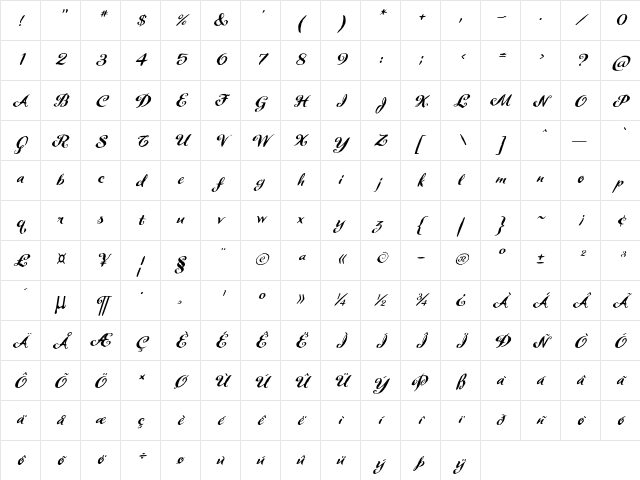
Blackheart Condensed Italic
Style: Condensed Italic
Blackheart Family
Blackheart Condensed Italic
Complete Blackheart Condensed Italic glyph index. Displaying only characters natively supported by Blackheart Condensed Italic font.
Design Context for Blackheart
Blackheart is a composed and adaptable typeface that performs quietly and consistently across a wide range of design contexts. The slanted form adds forward momentum and visual energy. Its narrow stance lets it pack a punch even in space-constrained designs.
Pro Tip: Use Blackheart for emphasis, pull quotes, and subheadings where its slanted energy can add rhythm to the layout.